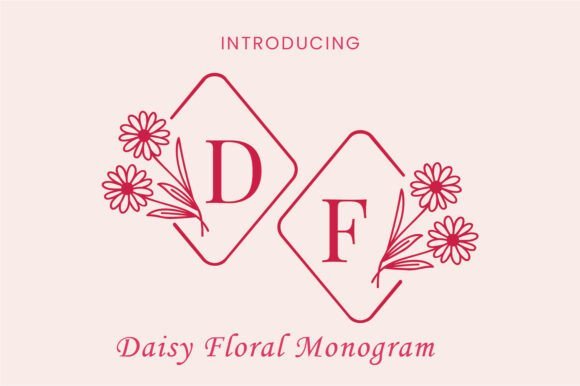
Adding a Touch of Springtime Charm to Your Designs
As a designer, there’s nothing quite like that moment of creative spark – the one where a single font or typography style completely transforms your project and takes it to the next level. For me, that moment often comes when I stumble upon a beautiful, elegant font that perfectly captures the essence of the theme or occasion. And that’s exactly what happens when you discover the Daisy Floral Monogram Font.
This gorgeous uppercase font features delicate daisy flower accents embedded within each letter, creating a sense of freshness, joy, and natural charm that’s perfect for spring-inspired designs, wedding stationery, and personalized gifts. Whether you’re looking to add a floral flair to your logo designs or simply want to give your projects a touch of whimsy, the Daisy Floral Monogram Font is a valuable addition to any designer’s toolkit.
Daisy Floral Monogram Font Key Features
- Unique Characteristics: This font features a delicate, floral monogram design with intricate details and a touch of elegance, making it perfect for wedding invitations, stationery, and other formal events
- Font Style: Comes in a range of styles, including uppercase, lowercase, and monogrammed letters, allowing for flexibility and customization
Daisy Floral Monogram Font Review
I recently had the chance to work with the Daisy Floral Monogram Font, and I must say, it’s a unique and charming addition to any design project. ✨ The intricate floral patterns and monogrammed details make it perfect for creating personalized and elegant designs, such as invitations, stationery, and branding materials.
One of the things that I appreciate about this font is its versatility. ✨ It can be used for both formal and casual designs, and its floral elements add a touch of whimsy and personality. The font also has a wide range of customization options, allowing designers to adjust the size, color, and style to suit their needs.
- Unique and charming design
- Perfect for personalized and elegant designs
- High level of customization options
- Versatile for both formal and casual designs
- ⚠️ May be too ornate for some design projects
- ⚠️ Can be difficult to read at small font sizes
- ⚠️ May require additional design elements to balance out the floral patterns
Overall, I think the Daisy Floral Monogram Font is a great addition to any designer’s toolkit. While it may have some limitations, its unique charm and versatility make it a great choice for a wide range of design projects.
Daisy Floral Monogram Font Practical Application Guide
Use the Daisy Floral Monogram Font to add a touch of elegance and whimsy to your designs.
Experiment with different font sizes, colors, and styles to create unique and eye-catching effects.
Pair the font with other floral or vintage-inspired elements to create a cohesive and romantic look.
The Daisy Floral Monogram Font is perfect for:
Baby shower invitations and decorations
Wedding stationery and invitations
Q: Can I customize the Daisy Floral Monogram Font to fit my specific design needs?
While the Daisy Floral Monogram Font is designed to be versatile and easy to use, some customization options are available. You can adjust font size, color, and spacing to suit your design requirements. Additionally, you can use design software to create custom monograms or logos using the Daisy Floral Monogram Font.